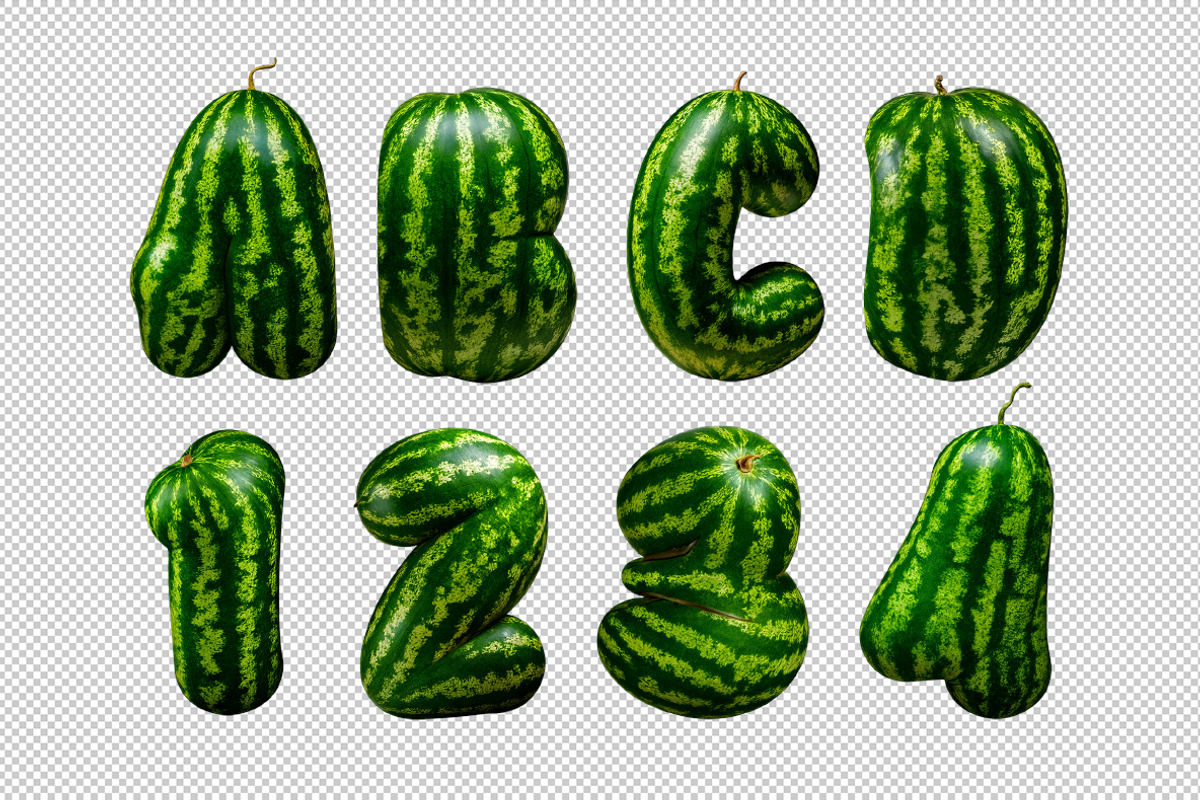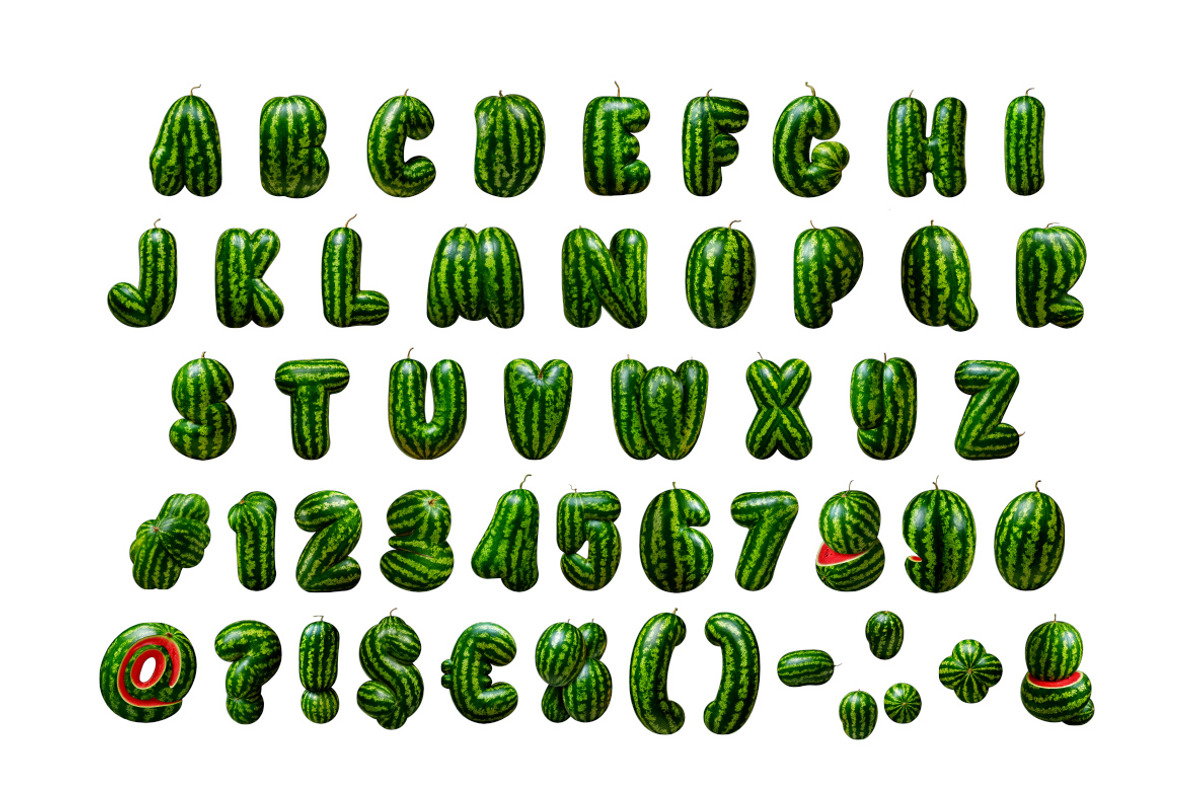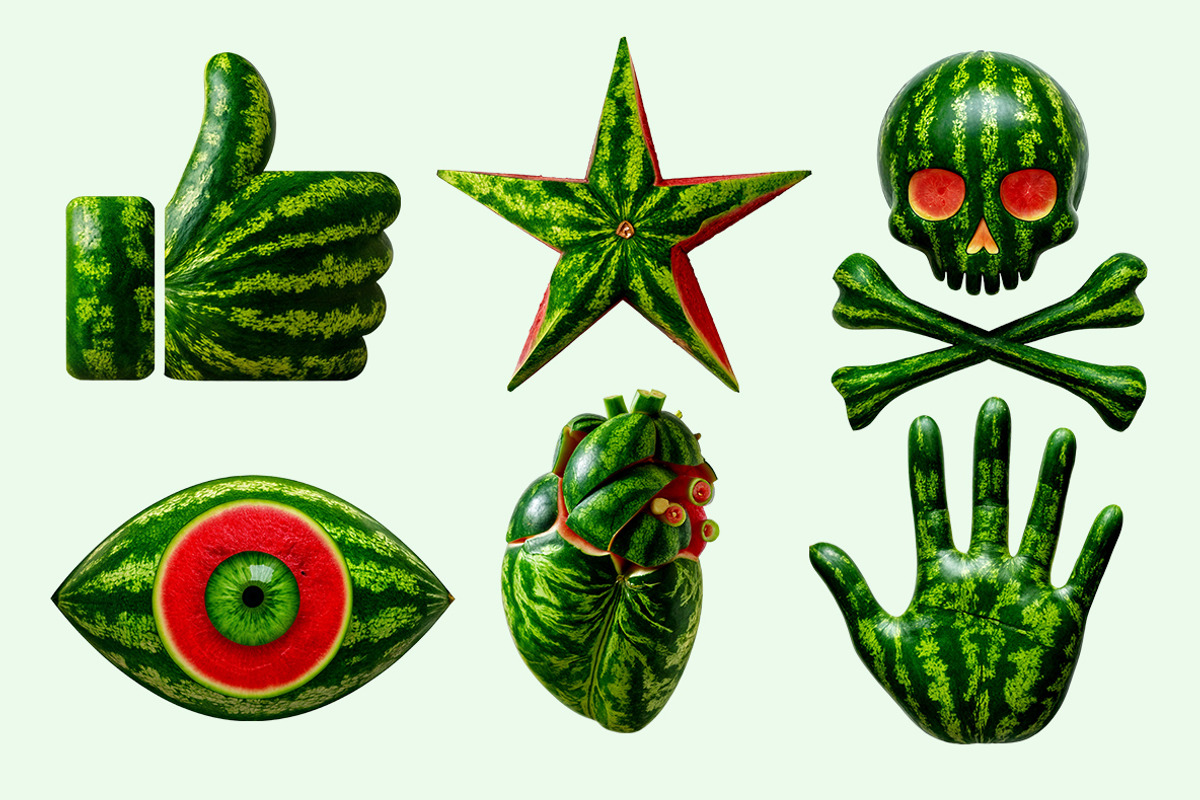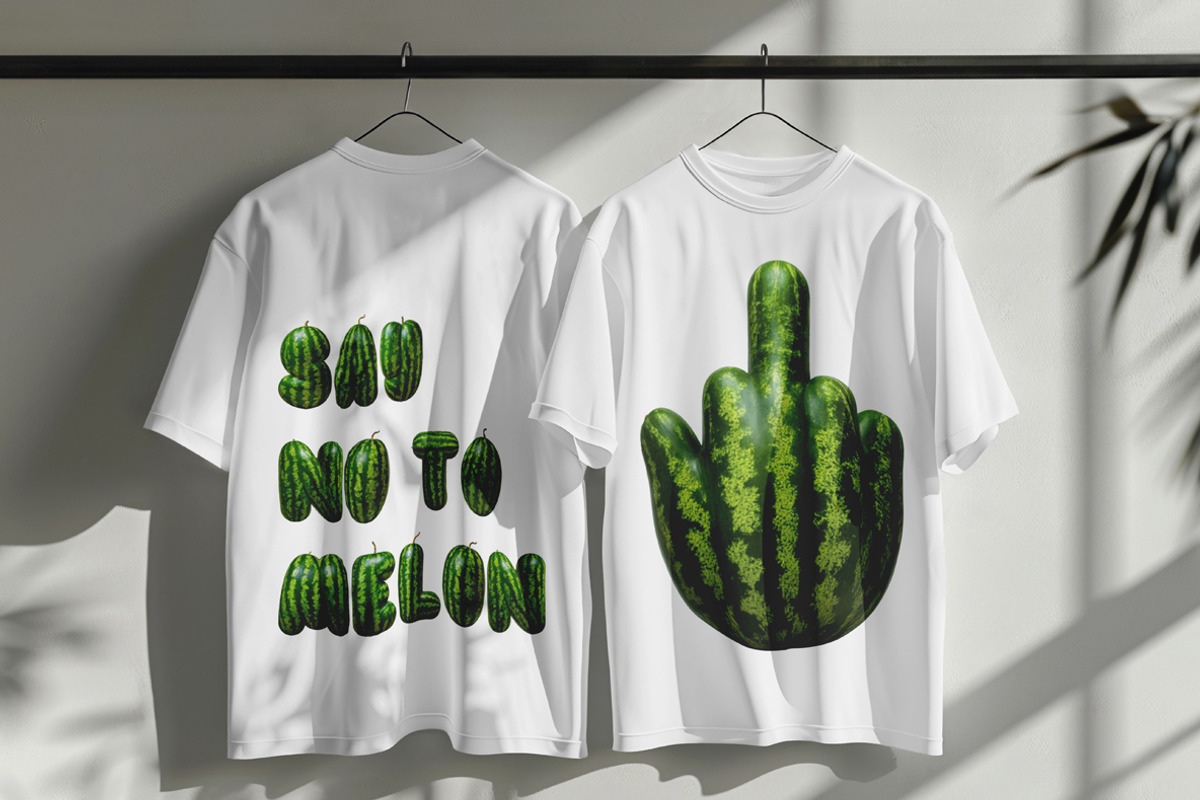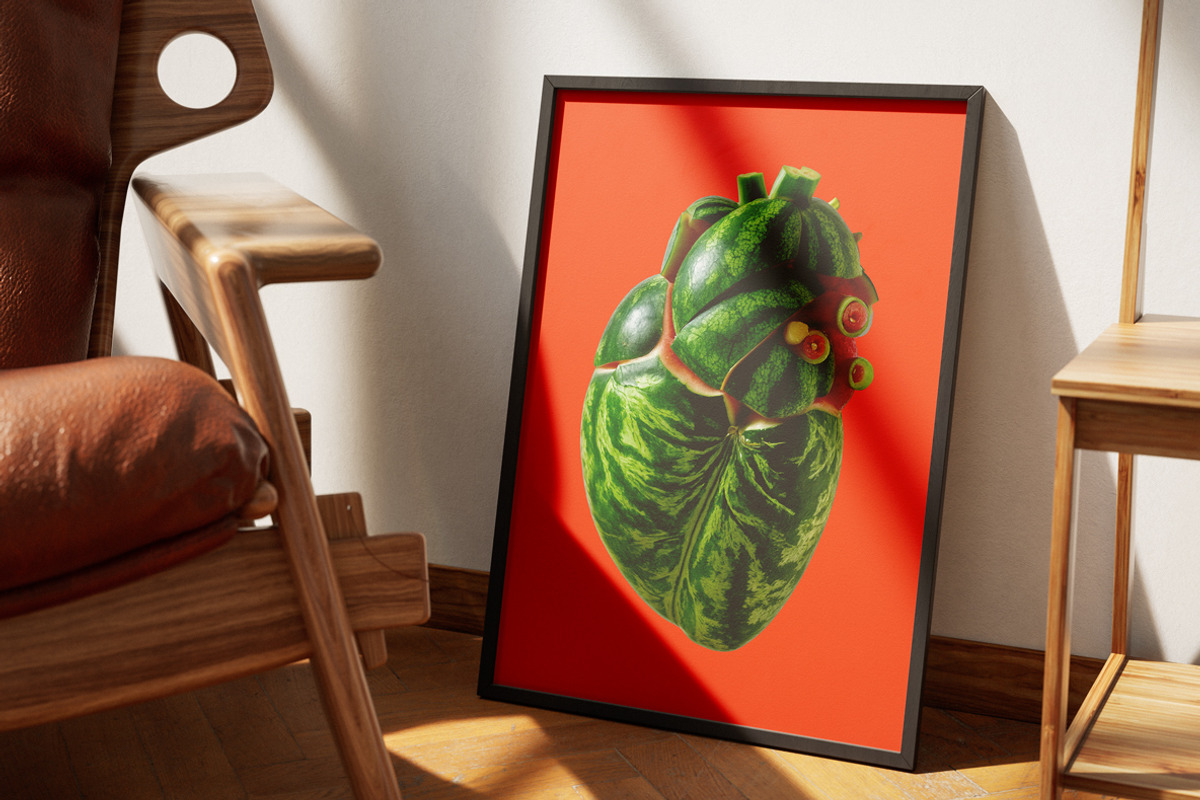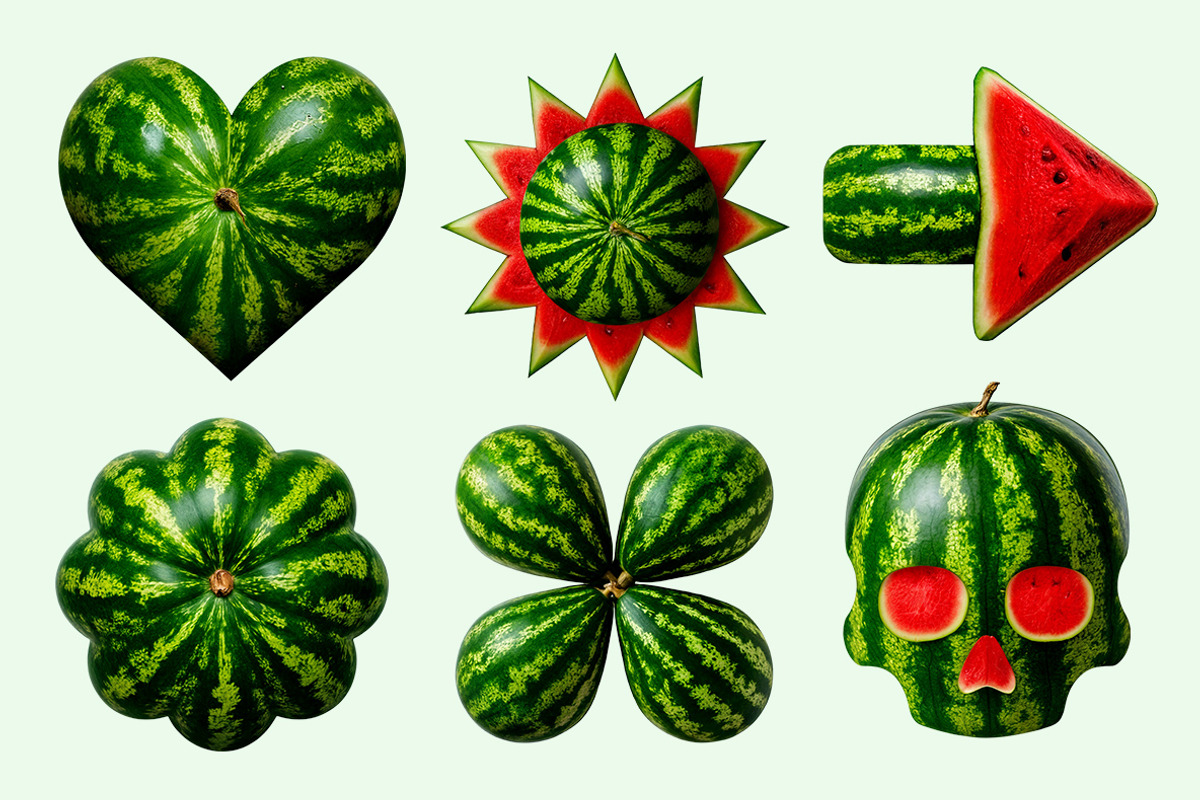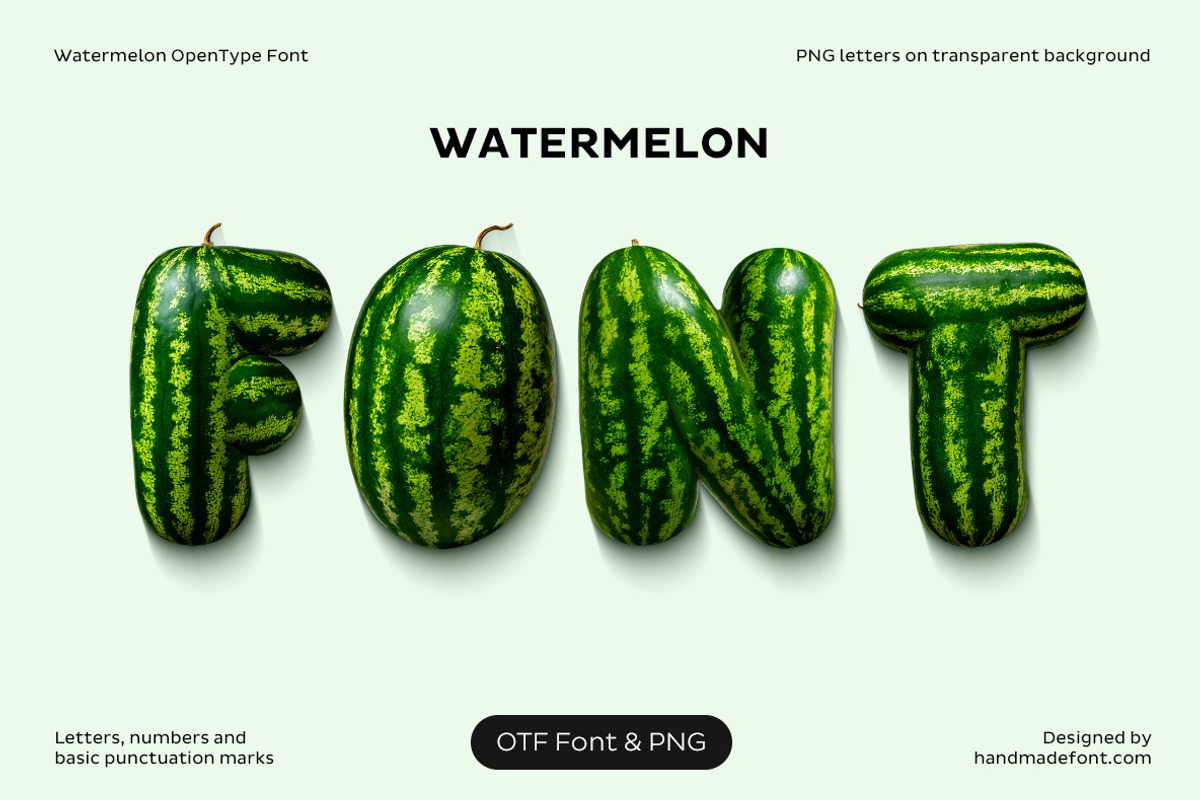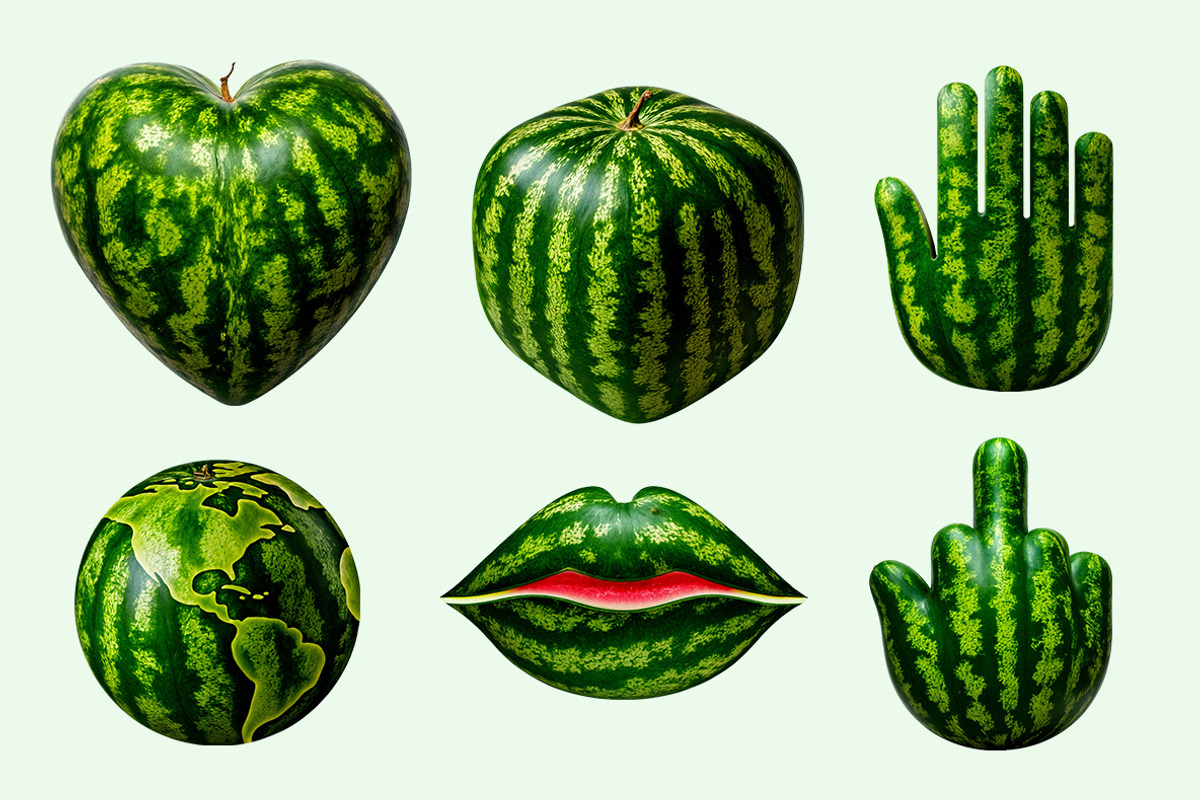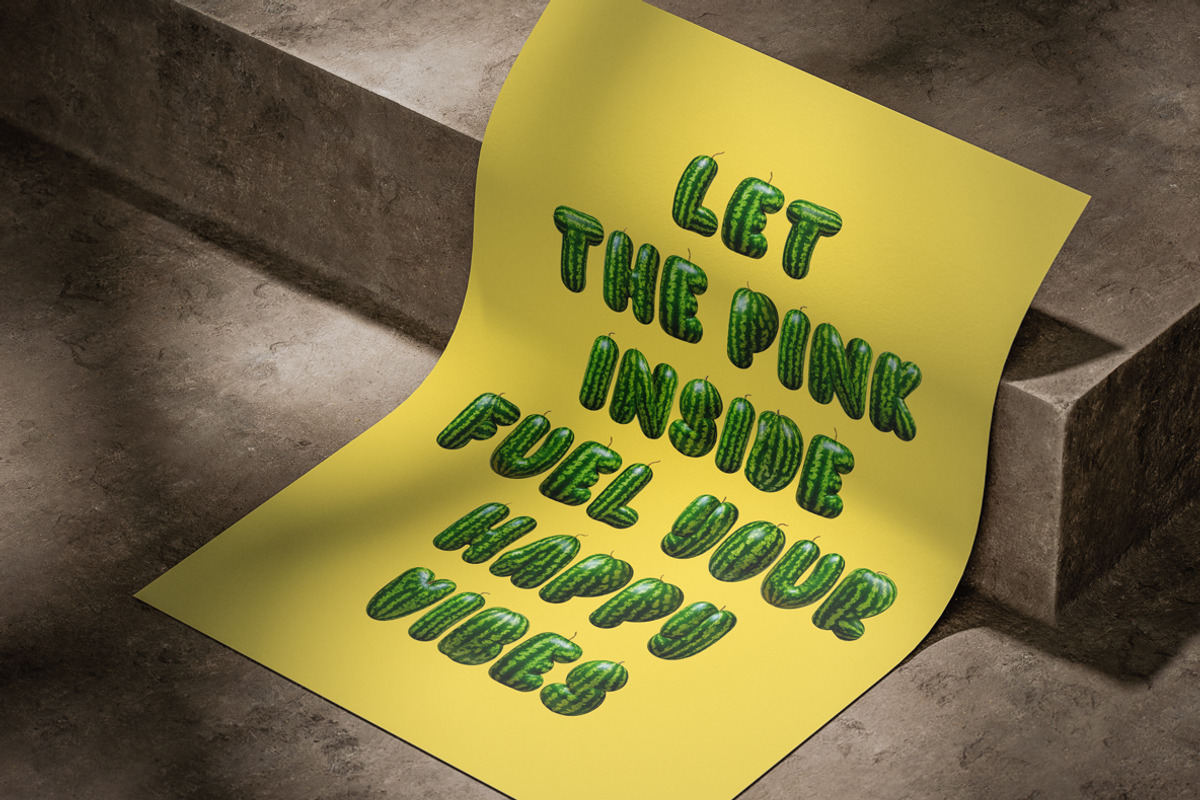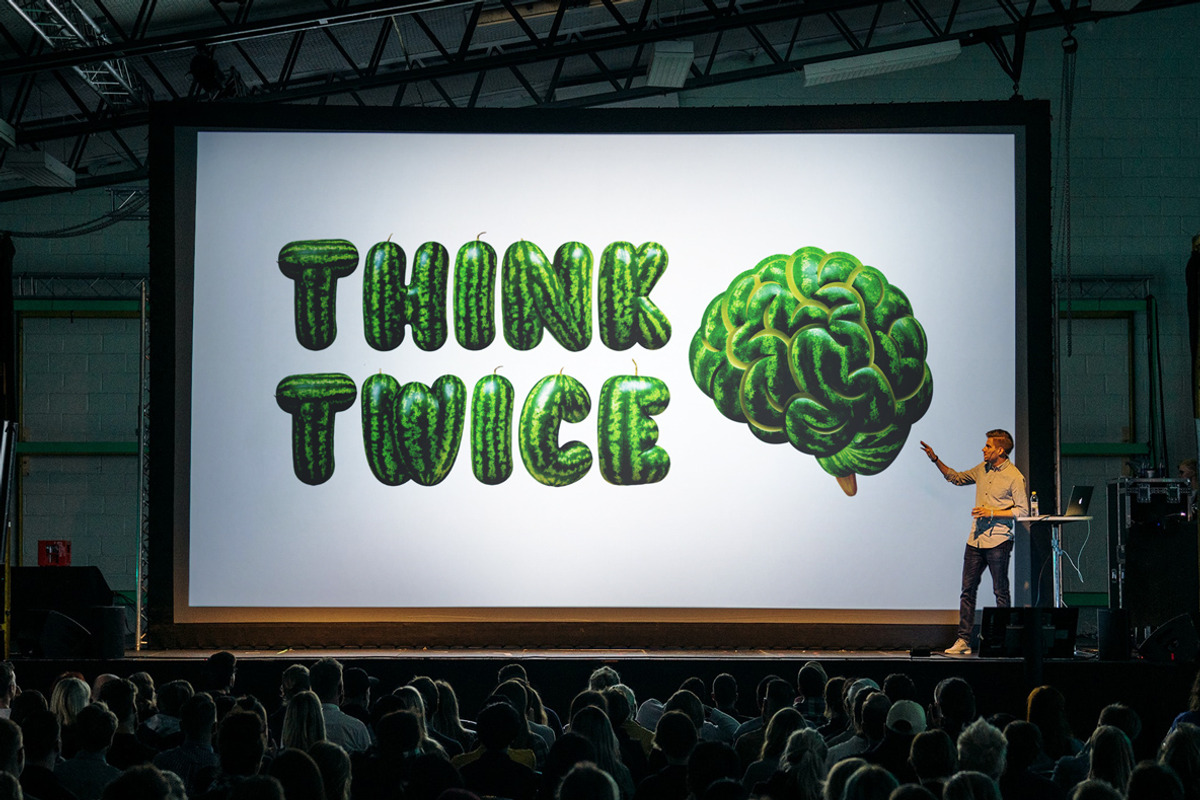
Watermelon Font
Introducing Watermelon Font—a bold, refreshing typeface that’s as juicy as a ripe summer fruit! Each letter in this font is hand-crafted from vibrant green watermelon skin, complete with natural stripes and curves that bring a playful, organic vibe to any design. Whether you're crafting a poster, a menu, or a social media graphic, Watermelon Font adds an irresistible touch of humor, creativity, and pure visual fun. It’s not just a font—it’s a summer party in every letter, bursting with flavor and dripping with personality. Get ready to make your designs pop with the fruity charm of Watermelon Font!
A high definition OpenType Font. Contains uppercase characters, numerals and basic punctuation. (Draw height roughly 800 pixels). All letters and glyphs that comprises this font you can see on the preview.